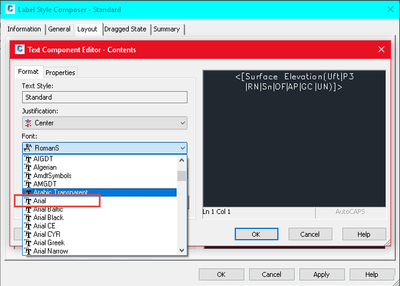
Arial font not available in label style text component editor
My company is switching to Arial Baltic and Arial Narrow as the fonts to be used use for everything including Civil 3D. I am editing a label style for compliance with the new standard and it has another font embedded in the text component editor. I cannot find a way to remove the override, and there is no choice in this font list for arial. How do I remove this non-standard font without rebuilding the style or at least that component?
Also, I don't care for the look of True Type fonts on a CAD screen but I seem to be the only one. Does anyone know of any reasons (besides the above) why arial is a poor choice for CAD?
I can't help you with the label style text editor problem, and I also have an answer you won't want to hear with respect to using TrueType fonts.
We are switching away from ROMANS and towards using TrueType fonts because objectively we believe they look nicer, and also they have the benefit that when published to PDF the text is searchable.  Non-TT fonts such as ROMANS are not searchable.
As we move publishing our plans electronically instead of on paper, that's a very valuable benefit.
Yeah, pros and cons to this
SHX are fast to generate, and you easily snap to the INS of them.
TTF typically look better on printed output (inc. PDF).
SHX can be made to print an almost infinite number of widths (or thickness) of the stroke, simply by varying the plot style.
TTF stroke width is defined in the font. Larger fonts are "thicker", etc. Some TTF fonts include a sister "Narrow" fonts, and there is the typical "Bold" setting, but sometimes you want a really bold L80 size font, or maybe a really light+thin L175 text - you can't do that with TTF, at least not without using a totally different font/style.
C3D labeling styles have 2 ways to change fonts, same as mtext, by external text style and by font internally. One is by the CAD Text style, if you don't create an arial text style Arial wont be available in the general tab under text style. On the layout tab, contents button you have a format tab with a font selection there, if the font doesn't show up here it isn't installed on your machine. It the Arial isn't listed under the fonts when creating a text style, again, it isn't installed.
An additional problem with TTF in place of shx. Using standard text style in line type definitions Arial looks ugly, Simplex looks right.
Regarding my text component editor problem, I included some screen shots below showing that, yes arial is installed on my system as evidenced in the Mtext editor, yet it still does not appear in the text component editor format tab font pull down.
Now that is buggy. Have you tried reinstalling arial.ttf to windows? And restart ACAD/C3d afterwards.
I've been using ttf in lines and text since Autodesk moved to windows back around 2000, when land desktop was released. Back then I used a script to get the drawing scale from LDD. It was the best move I ever made, especially when it came to providing documents for recording (plats, easements etc).
So other people have Arial fonts in their component editor?
Two years after this post, I still use Arial for everything CAD all the time, yet it is still is not a choice in the text component editor. I am using a new machine, and using a newer version of Civil 3D (2018) than when I first reported this issue.
So I'm the only one having this problem. And everyone else I've had check at my company. Maybe its something our IT folks are doing at install.
This sounds similar to a problem I'm having.
My labels are using an SHX font that is available everywhere else, but not in the label text format, just like the problem you see. I'll be interested to see what the solution may be.